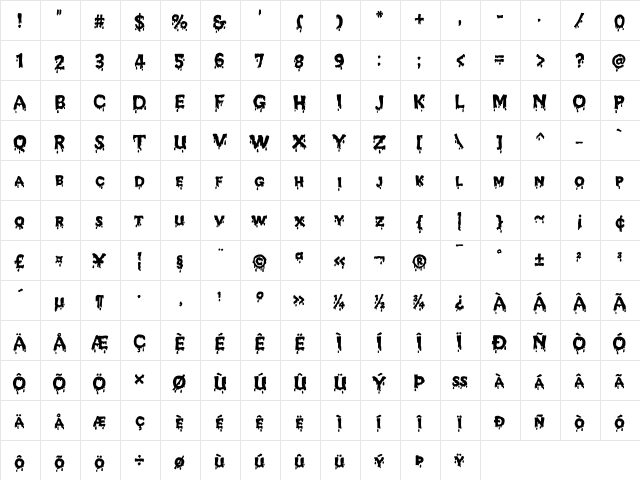
JD Melted Medium
Foundry: Jecko Development
Designer: Jecko Development
Design Context for JD Melted
JD Melted is a composed and adaptable typeface that performs quietly and consistently across a wide range of design contexts.